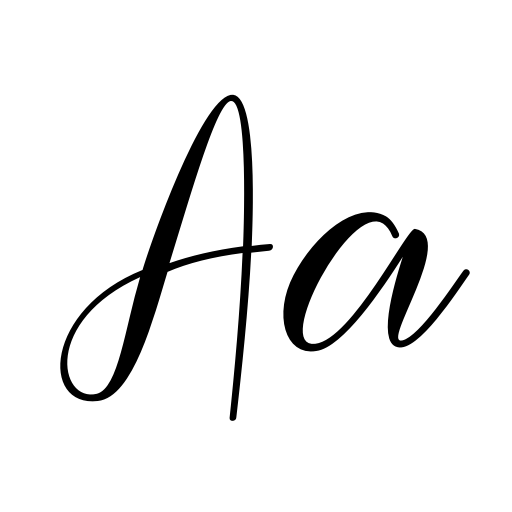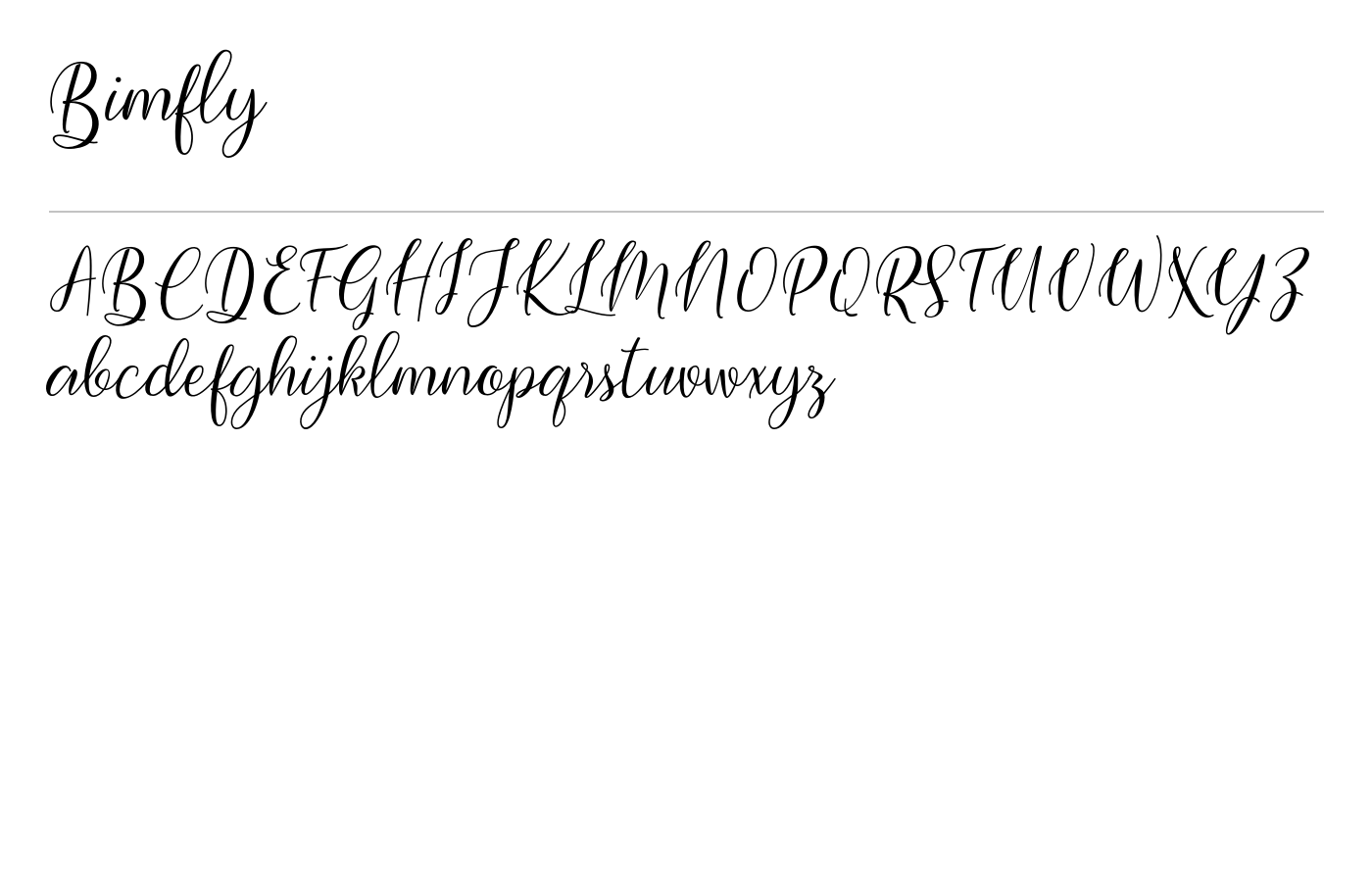
Bimfly is an elegant script font with graceful, flowing letterforms that combine delicate strokes and smooth curves, giving it a sophisticated yet approachable feel. Its light weight and refined style make it perfect for use in invitations, luxury branding, and feminine designs where a touch of elegance and charm is desired. This font works beautifully in headlines, logos, and any creative project that calls for an artistic, handwritten flair.
Bimfly Font